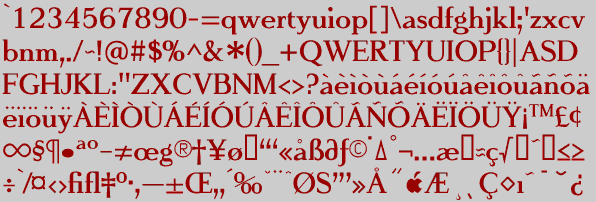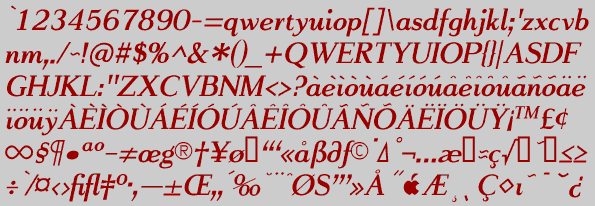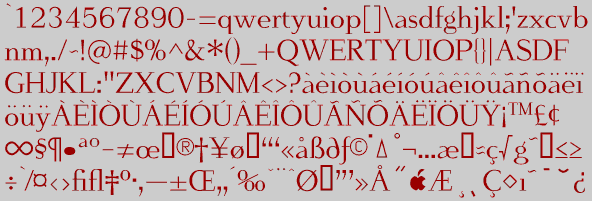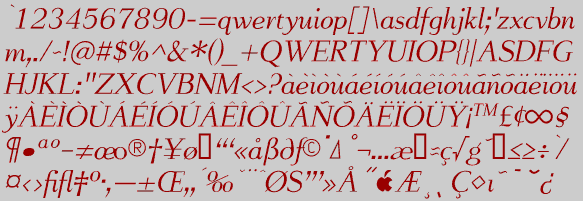
FlyHigh is a reworking of JasparSqueeze, changing the serifs and the x-height (among other things). It has a very different look than JasparSqueeze, and is less suitable for straight text.